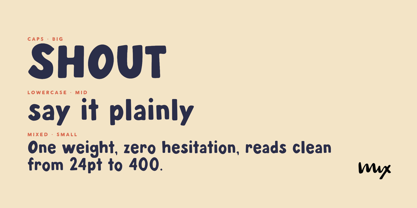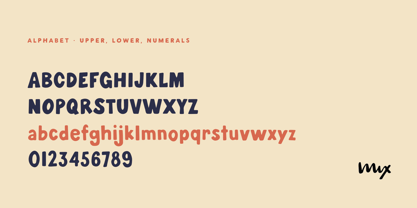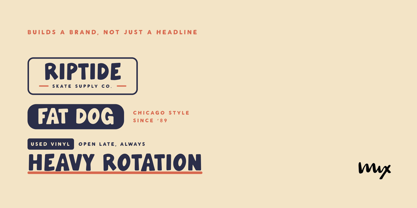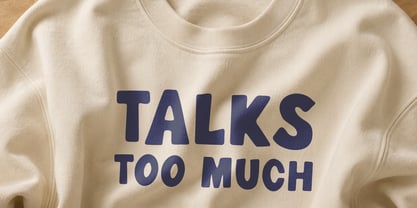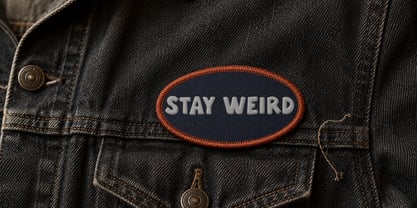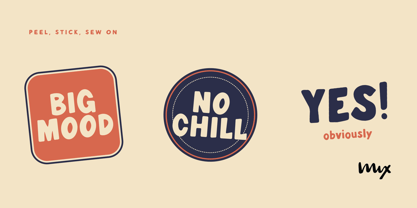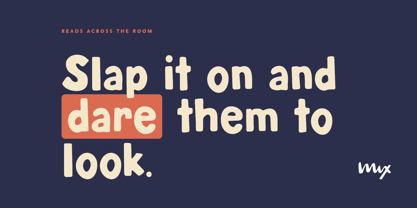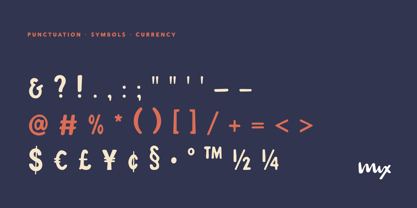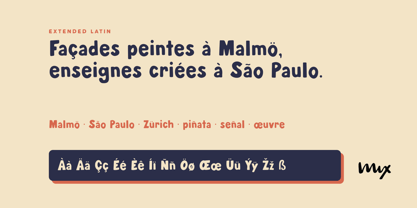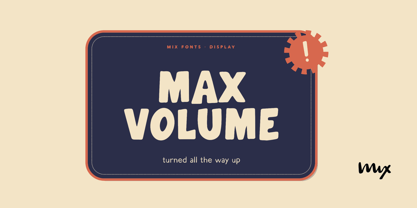
Max Volume
Max Volume is a display sans turned all the way up. I drew it heavy, round, and tight, so every word comes out at full strength whether it's one letter on a sticker or a whole headline across a poster.
The caps do the shouting. The lowercase keeps the same weight with a softer bounce, so you can set a loud line and a friendly one in the same font and they'll still read as a pair.
It's built for the things that get seen first: logos, labels, patches, shirts, signs, packaging, and social posts that have one line to land the message.
Set it big. It was made for big.